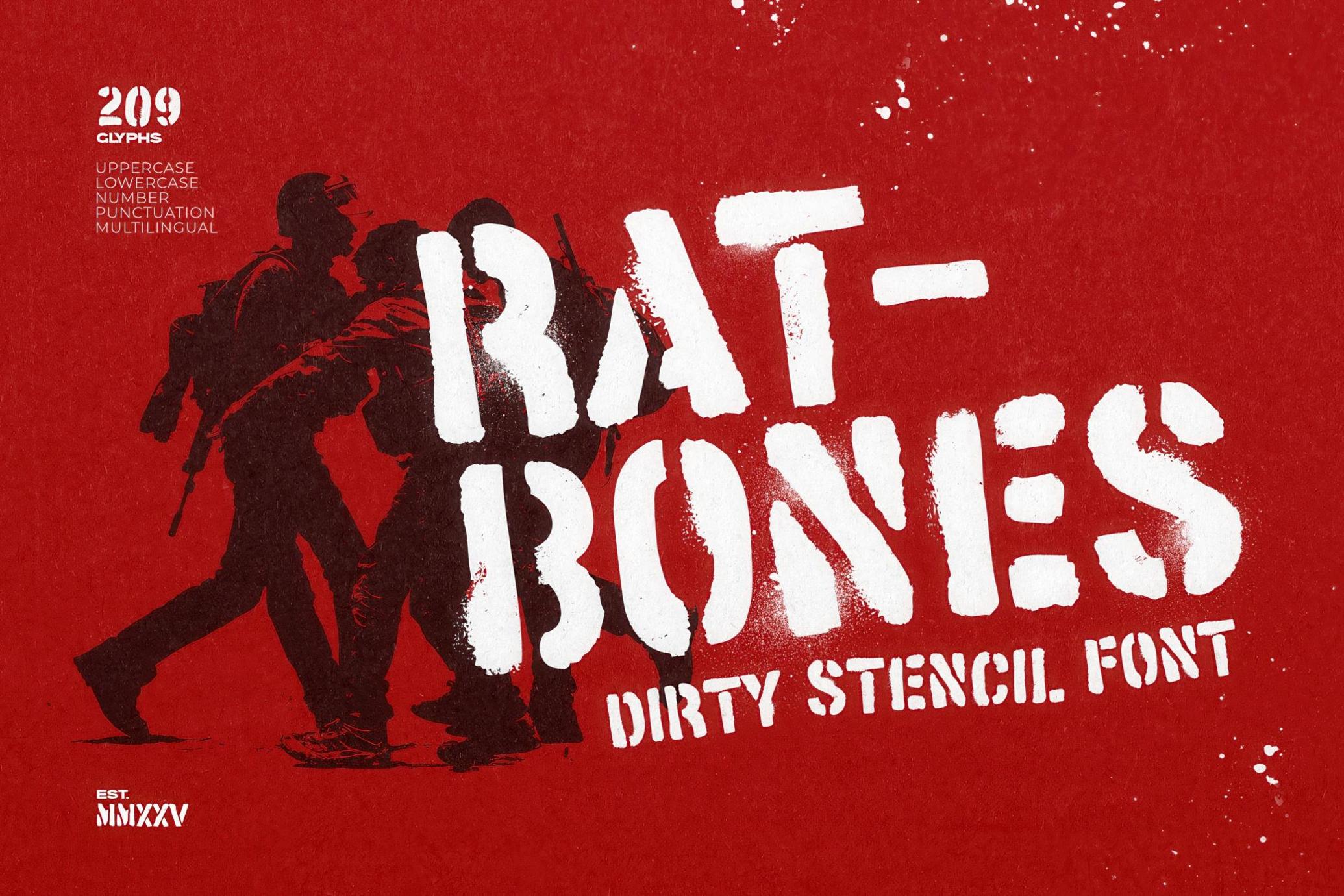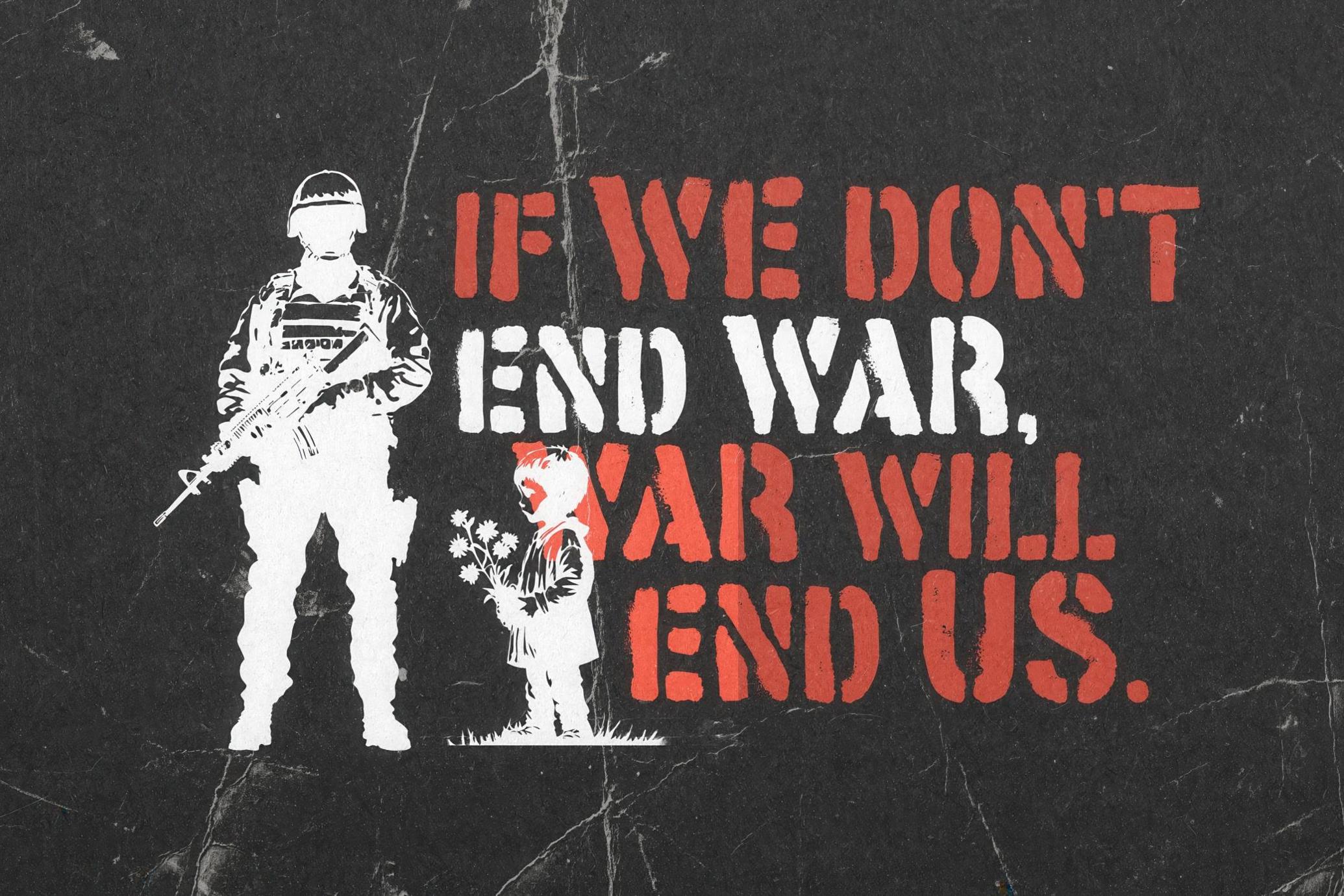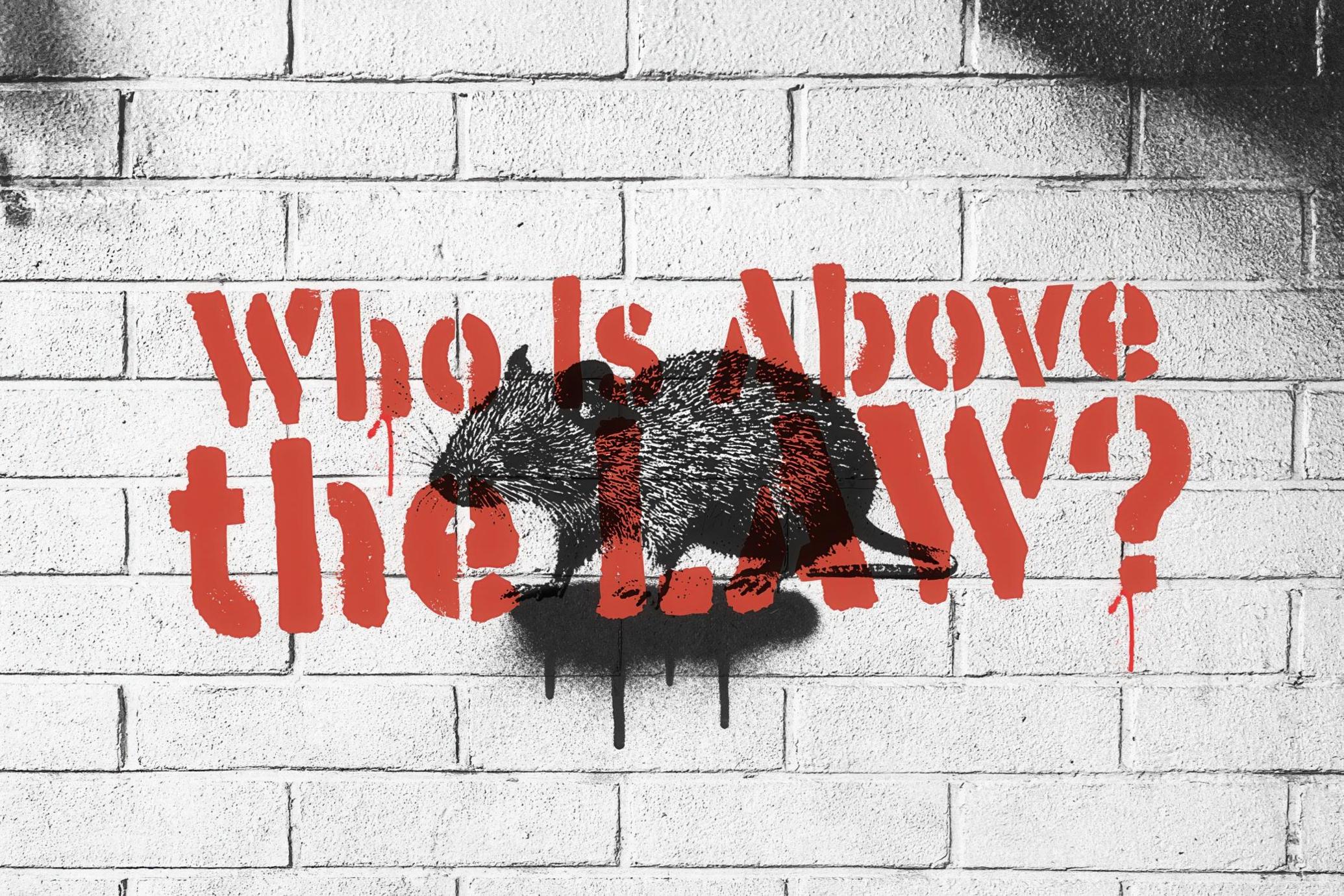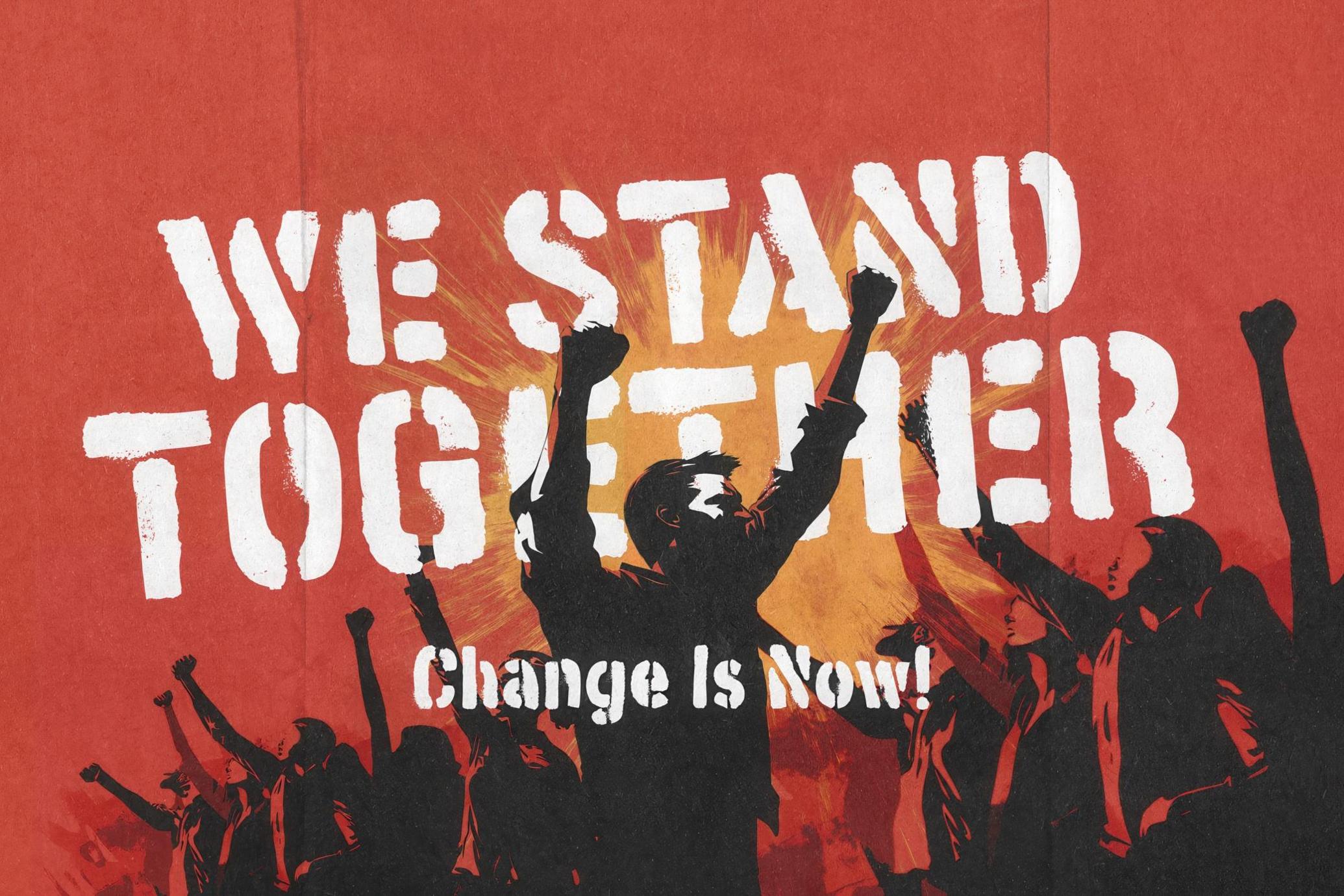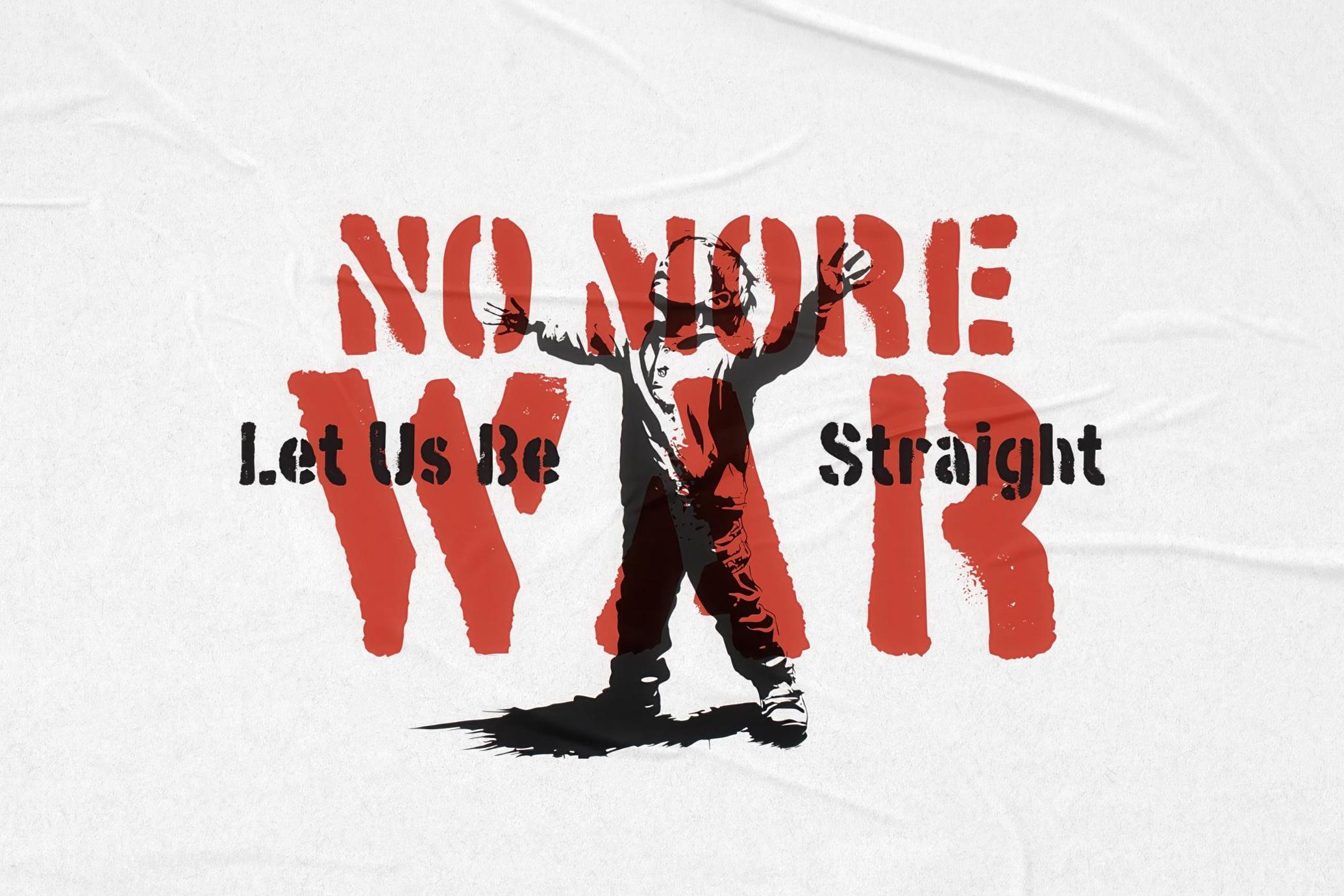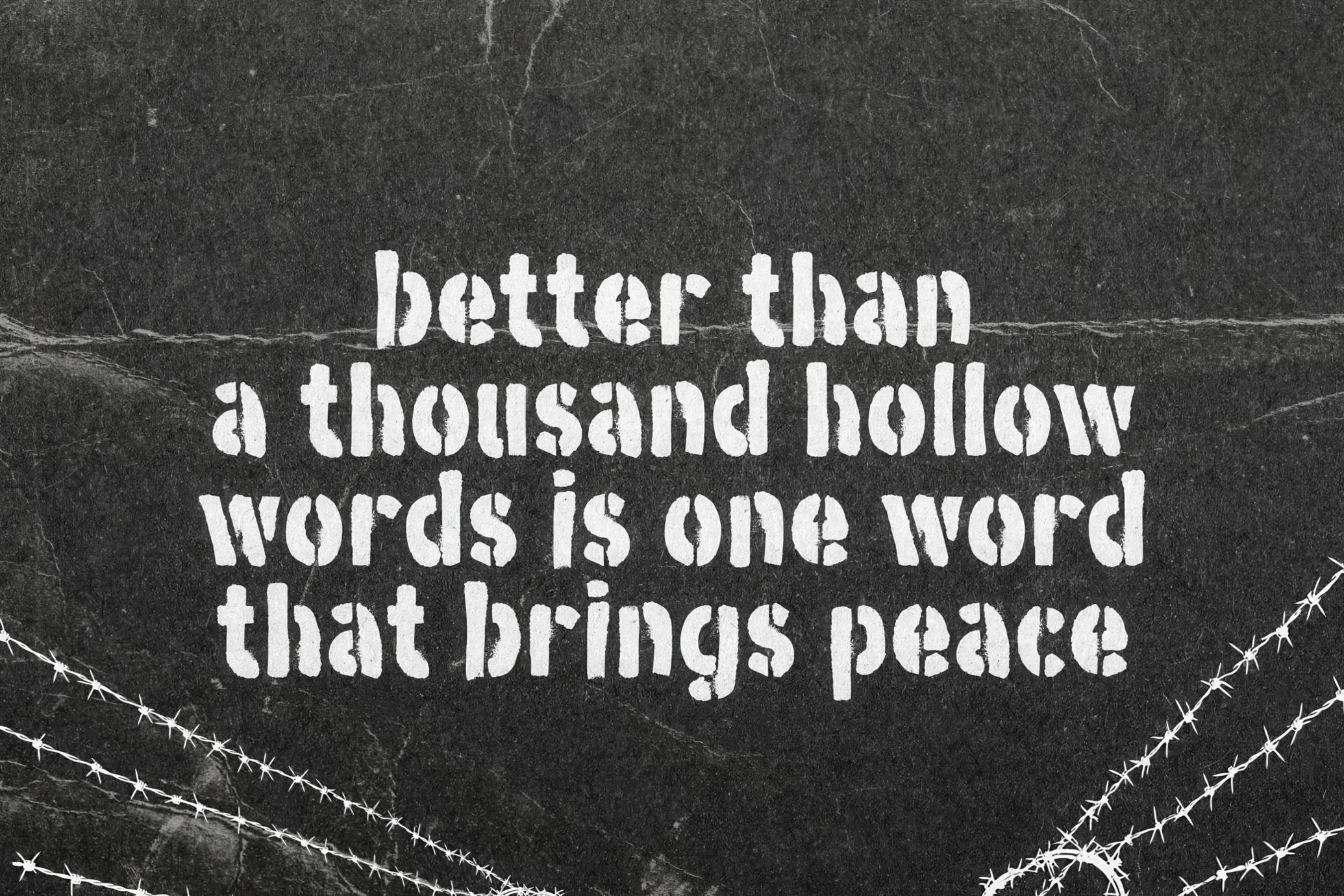
Ratbones — Dirty Stencil Font
Ratbones
Ratbones was born somewhere between The Warriors and a back alley tag battle. The font looks like it got sprayed on a riot shield, smuggled out of a squat, and handed off to someone with a box cutter and a vision. Dirty, busted, and wild at the edges — this stencil typeface doesn’t even try to play nice, and that’s the point. With heavy-duty letterforms that feel ripped from a rusted shipping crate or a punk show flyer, it is built for high impact. The set of glyphs is complete with upper & lower case letters, punctuation, and numerals. Use it for anti-fashion branding, posters, underground zines, or urban merch — this one’s for designers who don’t flinch.